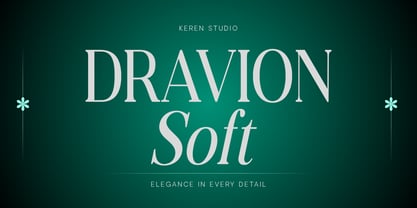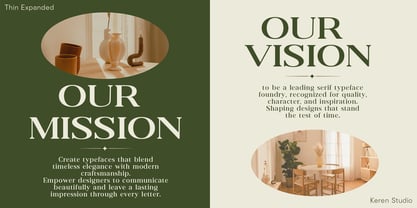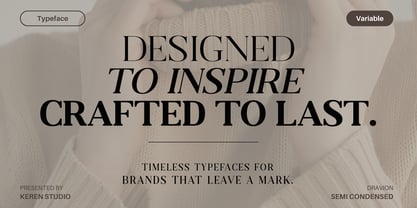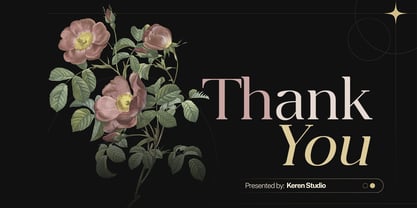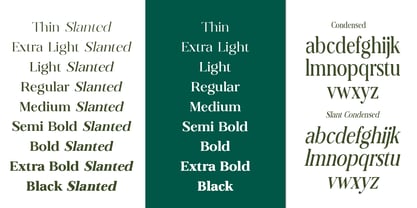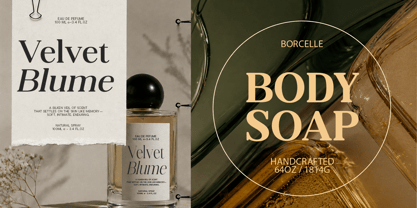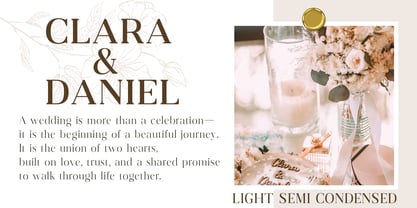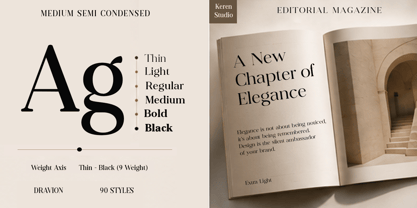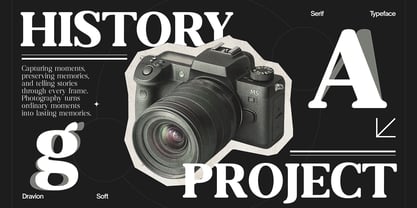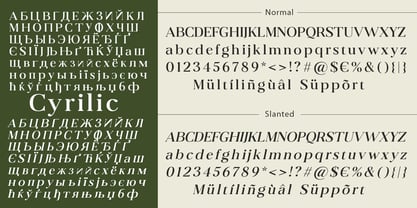
Dravion Soft
by Keren Studio
The Dravion Soft Font Family was designed by Cut Nurul Hadia and published by Keren Studio. Dravion Soft contains 91 styles and family package options. More about this family
Dravion Soft is a versatile modern sans-serif typeface featuring an impressive 90 styles in a single variable font.
Built with three powerful variation axes — Weight, Width, and Slant — Dravion Soft provides extensive creative flexibility for designers. Its weight range spans from Thin to Black, while the width axis offers five proportions from Condensed to Expanded. The slant axis adds both upright and slanted styles, allowing you to create the perfect typographic expression for every project.
With its clean, smooth, and contemporary character, Dravion Soft combines versatility with a distinctive modern personality. From delicate headlines to bold branding, narrow layouts to wide displays, the font adapts effortlessly to different design needs.
Designers: Cut Nurul Hadia
Foundry: Keren Studio